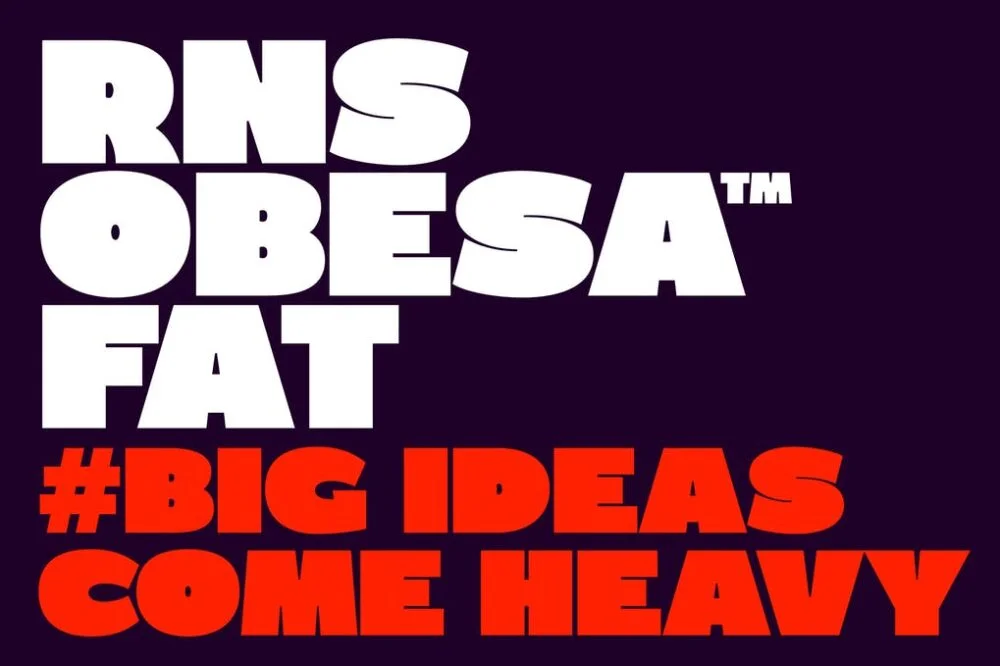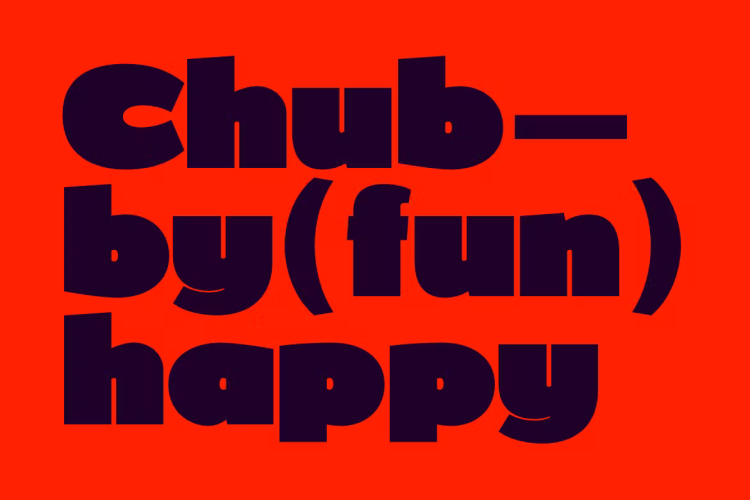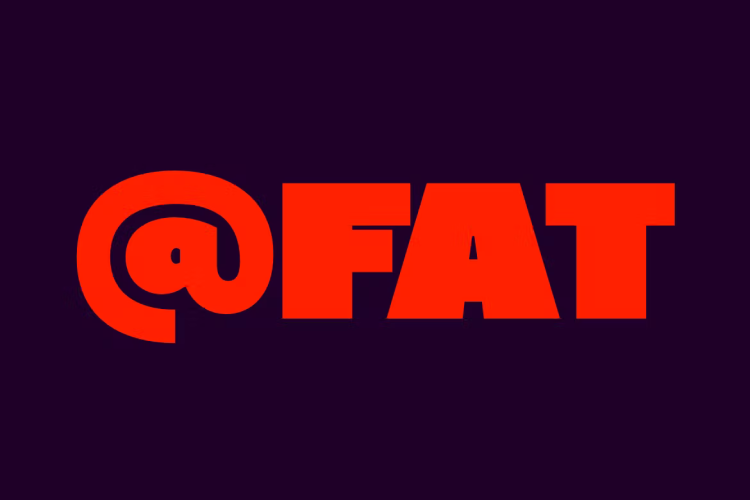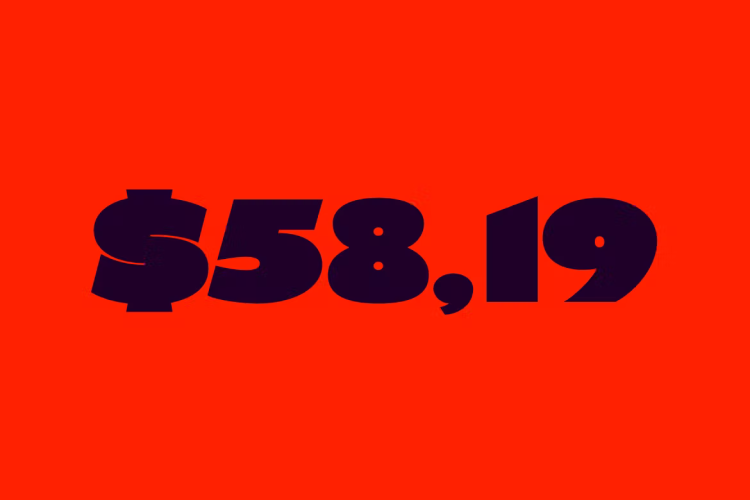
RNS Obesa Fat Font
RNS Obesa Fat Font it’s a display fat font, plumper and chubby with a minimal counterpunch to achieve a black color for heavy compositions, completely full of curves and expressive sharp vertices makes it the perfect companion to poster design. A playful strong personality with attractive curves.
RNS Obesa Fat Font is a Display Fonts font that brings a professional and versatile look to your projects. RNS Obesa Fat Font it’s a display fat font, plumper and chubby with a minimal counterpunch to achieve a black color for heavy compositions, completely full of curves and expressive sharp vertices makes it the perfect com.